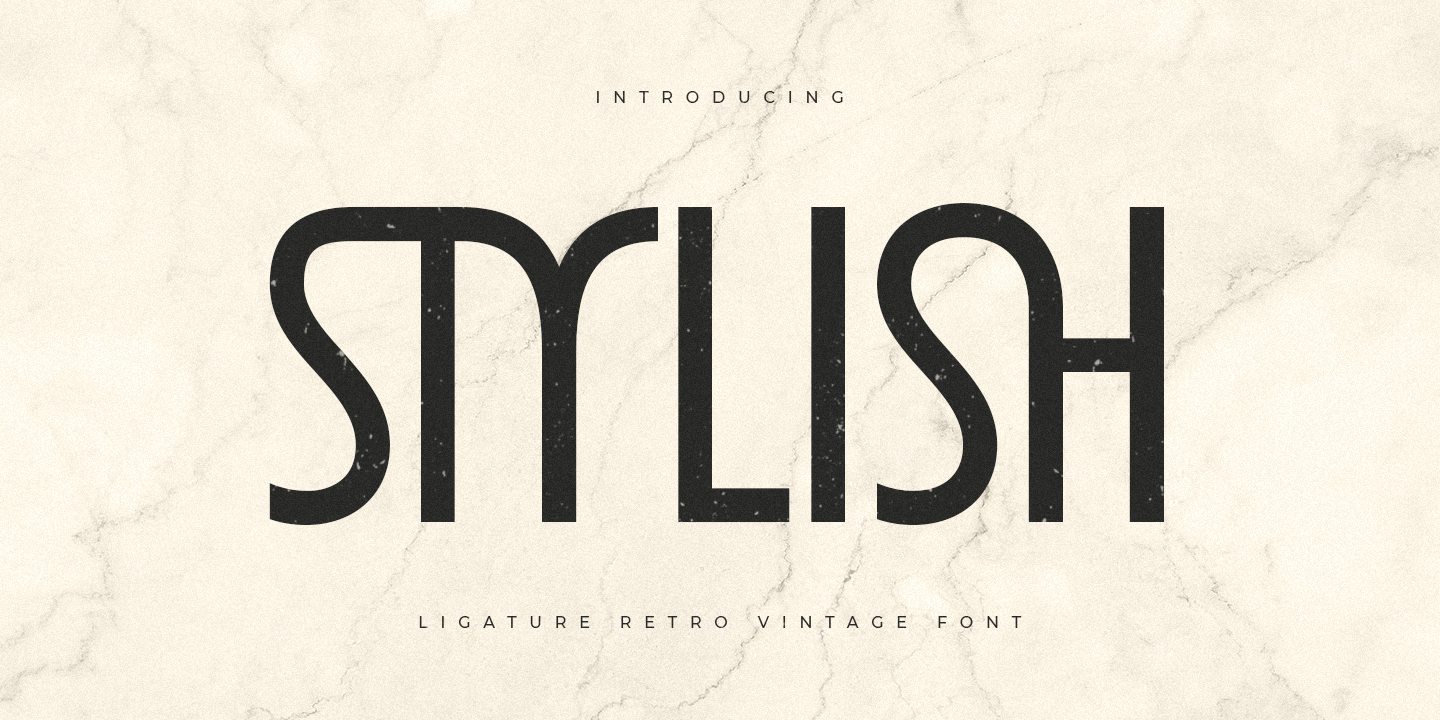
Stylish Style Font is perfect for fashion-forward branding, trendy boutique signage, chic lifestyle marketing, modern beauty campaigns, sophisticated style blogs, elegant fashion shows, contemporary design studios, stylish social media graphics, upscale retail communications, and cutting-edge style advertising.
What makes Stylish Style Font exciting is its fashion-forward elegance that perfectly captures the contemporary sophistication and trendsetting appeal found in modern style culture and fashion excellence. This typeface features sleek letterforms with stylish proportions and fashion-inspired details that convey the confident elegance and trend-conscious sophistication of contemporary style leadership. The font's chic personality and fashion authenticity make it ideal for style brands seeking to convey modernity, sophistication, and the trendsetting appeal that comes from genuine fashion innovation and contemporary style mastery.
Stylish Style Font family includes chic weight variations and fashion alternatives that enhance its stylish appeal while providing design flexibility for fashion and lifestyle applications. The font features elegant ligatures, style-themed ornaments, and sophisticated character variations that create authentic fashion atmosphere for style and contemporary branding.
Fashion brands and lifestyle companies consistently choose Stylish Style Font Free Download for projects requiring authentic style appeal and fashion credibility. The font's sophisticated character excels in applications targeting style-conscious consumers who appreciate genuine fashion innovation and contemporary elegance. Whether you're designing for fashion boutiques, style magazines, or luxury lifestyle brands, this elegant typeface delivers the fashion authenticity and stylish sophistication that resonates with audiences seeking genuine style leadership and the contemporary elegance that defines modern fashion culture and trendsetting style excellence.